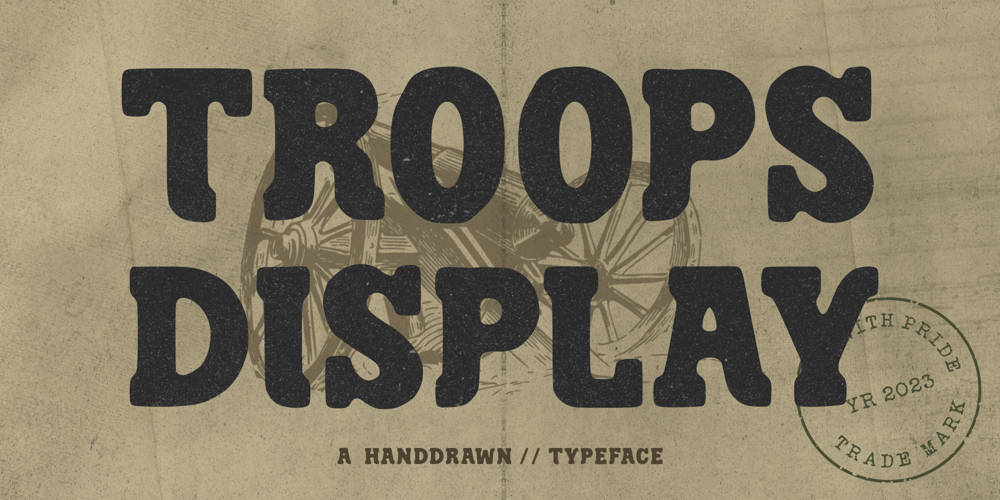
Troops Display Font Family was designed by Bagus Arya and published by Genetype. Troops Display contains 1 styles and family package options. Introducing Troops Display Typeface: Where Vintage Meets Bold!Inspired by the rugged charm of the past, this slab serif typeface exudes strength and character in every letterform. From striking headlines to impactful branding, Troops Display commands attention with its rough lines and distinctive serifs. Whether you’re reviving a classic look or adding a touch of timeless flair, Troops Display is your go-to choice for designs that stand the test of time.